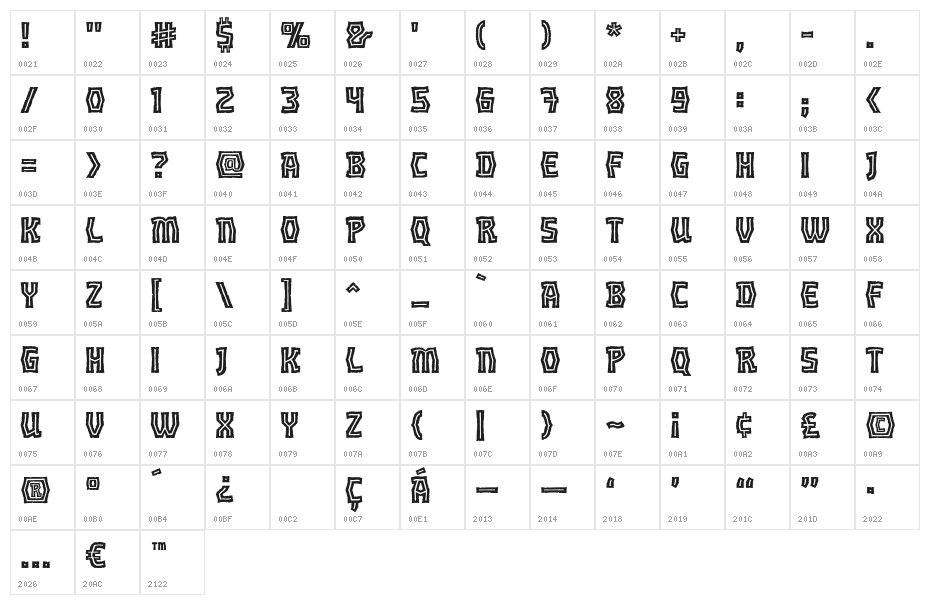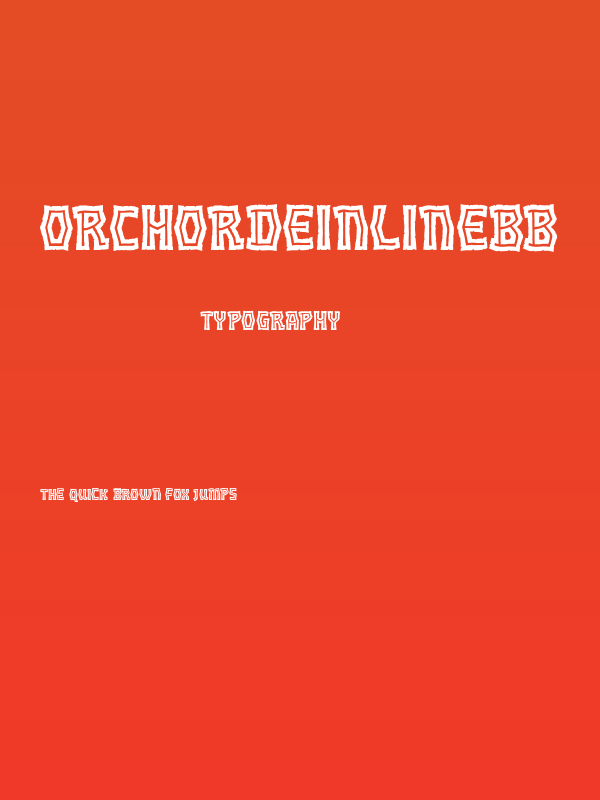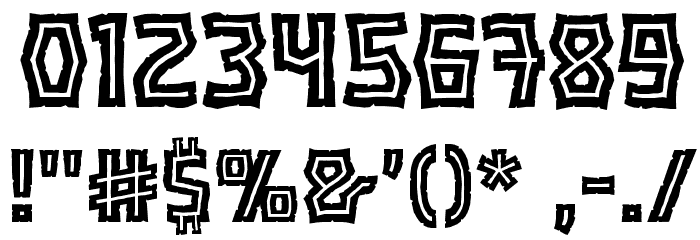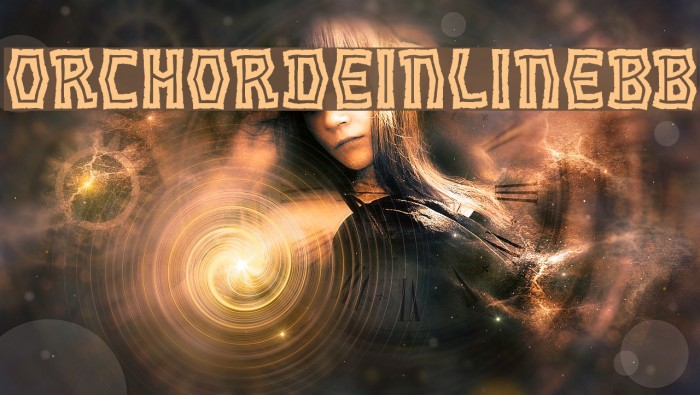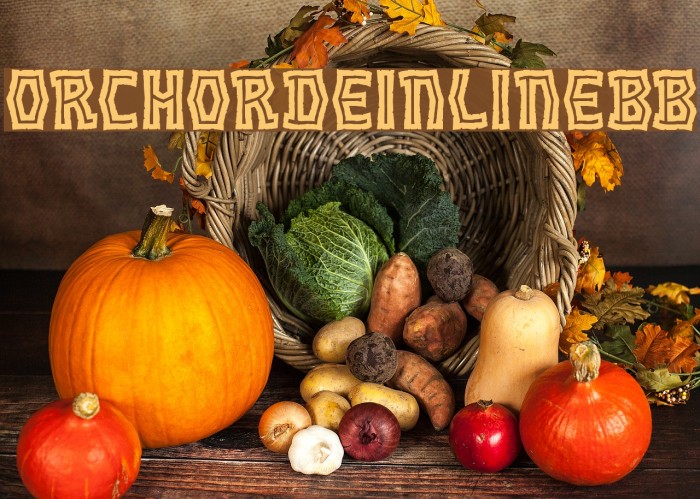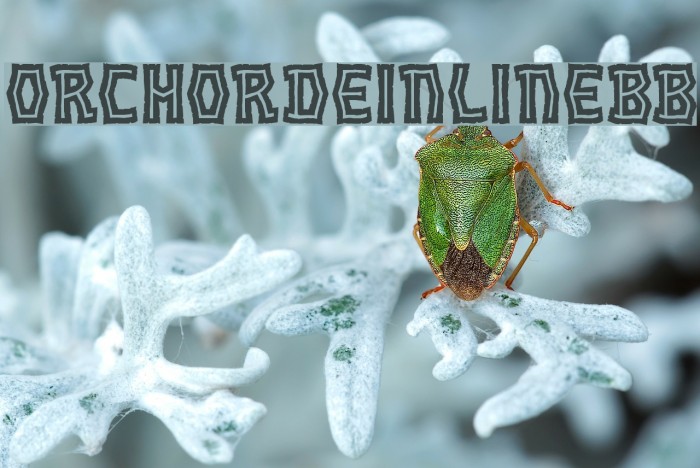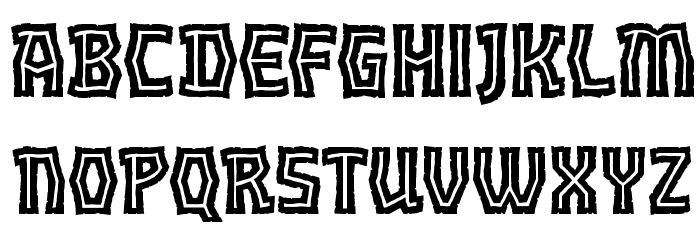
OrcHordeInlineBB Font
OrcHordeInlineBB Description
This font features a bold and rugged design with thick, uneven strokes that create a sense of movement and energy. The characters have a hand-drawn appearance, with irregular edges and a slightly distressed look, giving them a raw and organic feel. The uppercase and lowercase letters maintain a consistent style, with each character exhibiting unique quirks that add to the overall aesthetic. The numbers and special characters follow the same design principles, ensuring a cohesive look across all glyphs. This font is ideal for projects that require a bold, eye-catching display with a touch of personality.
| Proposed Projects | Ideal for posters, video game titles, fantasy-themed designs, and branding that requires a bold, adventurous look. |